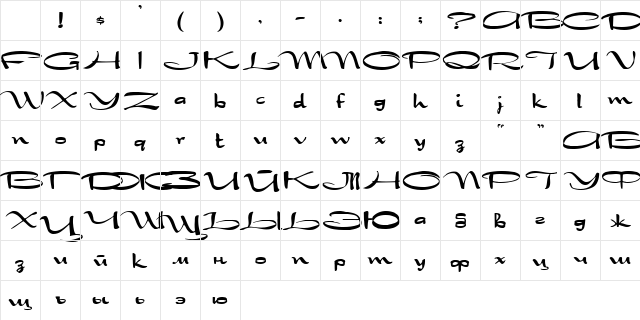
Complete Drakkar Regular glyph index. Displaying only characters natively supported by Drakkar Regular font.
Drakkar is a composed and adaptable typeface that performs quietly and consistently across a wide range of design contexts.